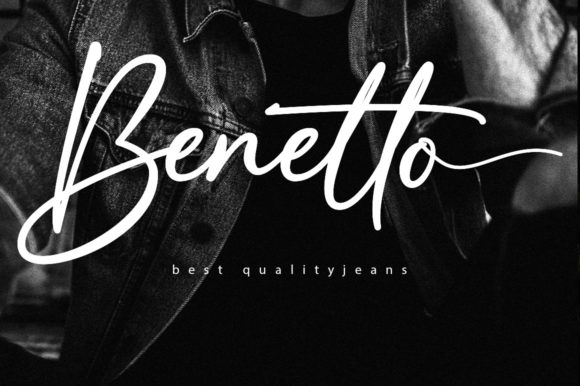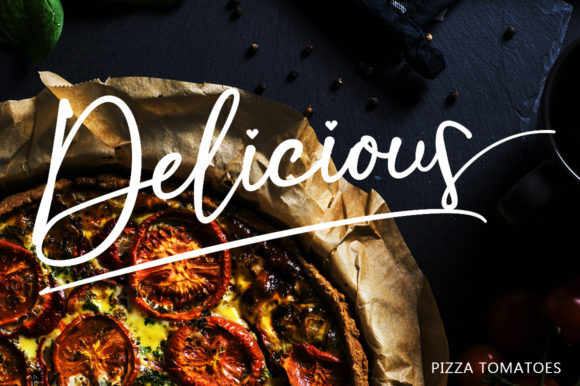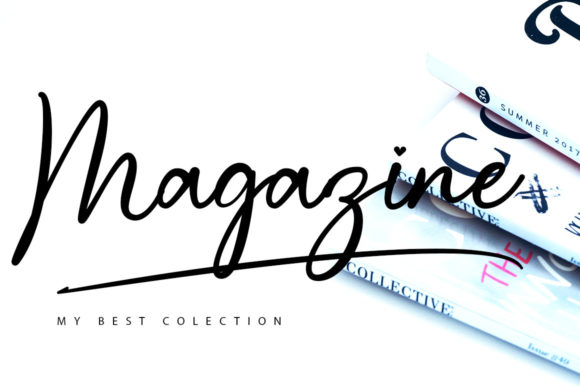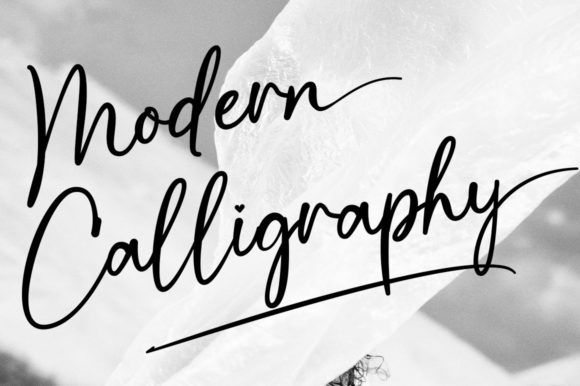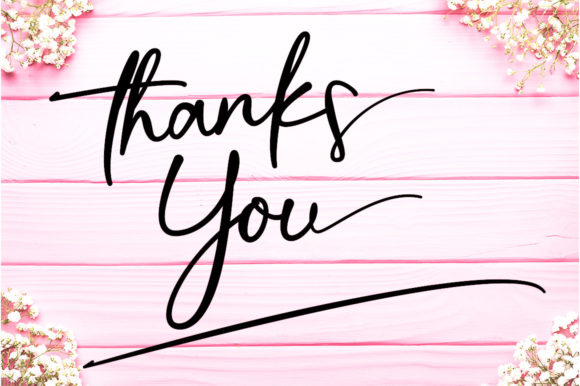
Introduction to Khikmatin Font
Khikmatin is a stylish and modern calligraphy font, featuring a chic, casual style.
It is perfect for branding, wedding invitations and cards, and even for labels This font is PUA encoded which means you can access all of the glyphs and swashes with ease.
Key Features of Khikmatin Font
Why Choose Khikmatin Font?